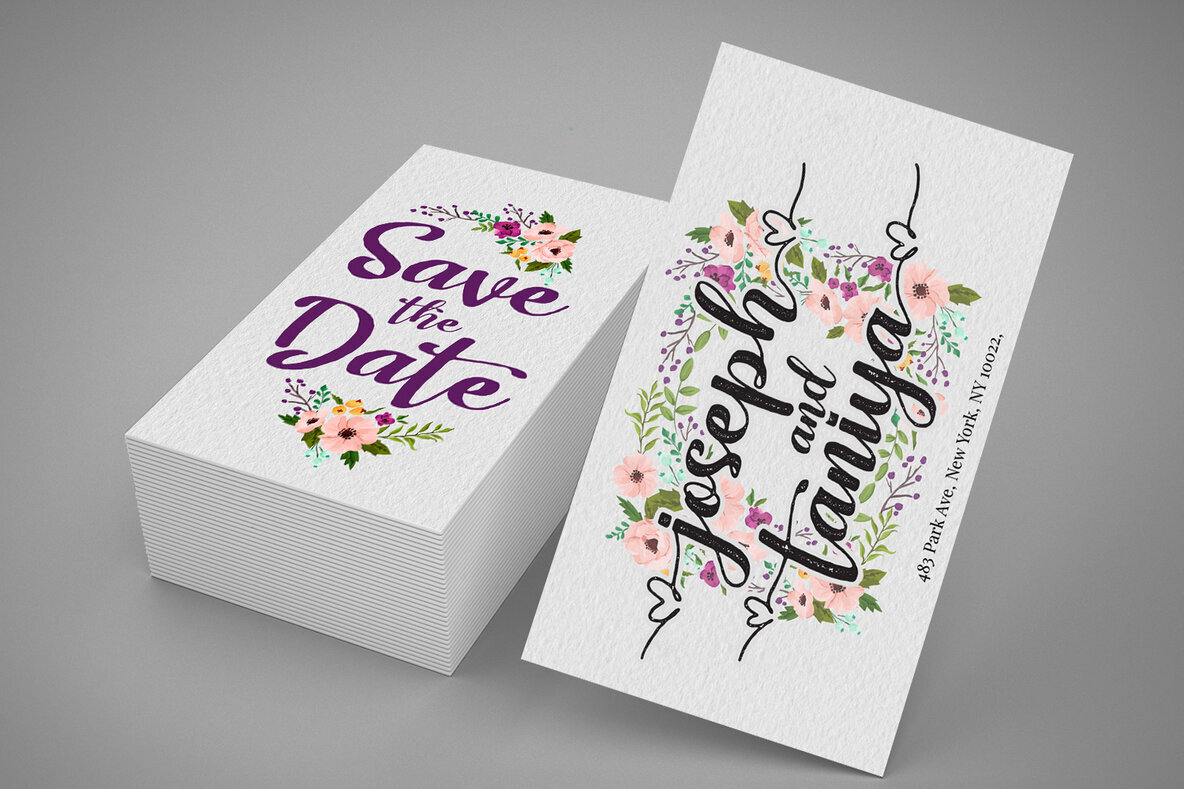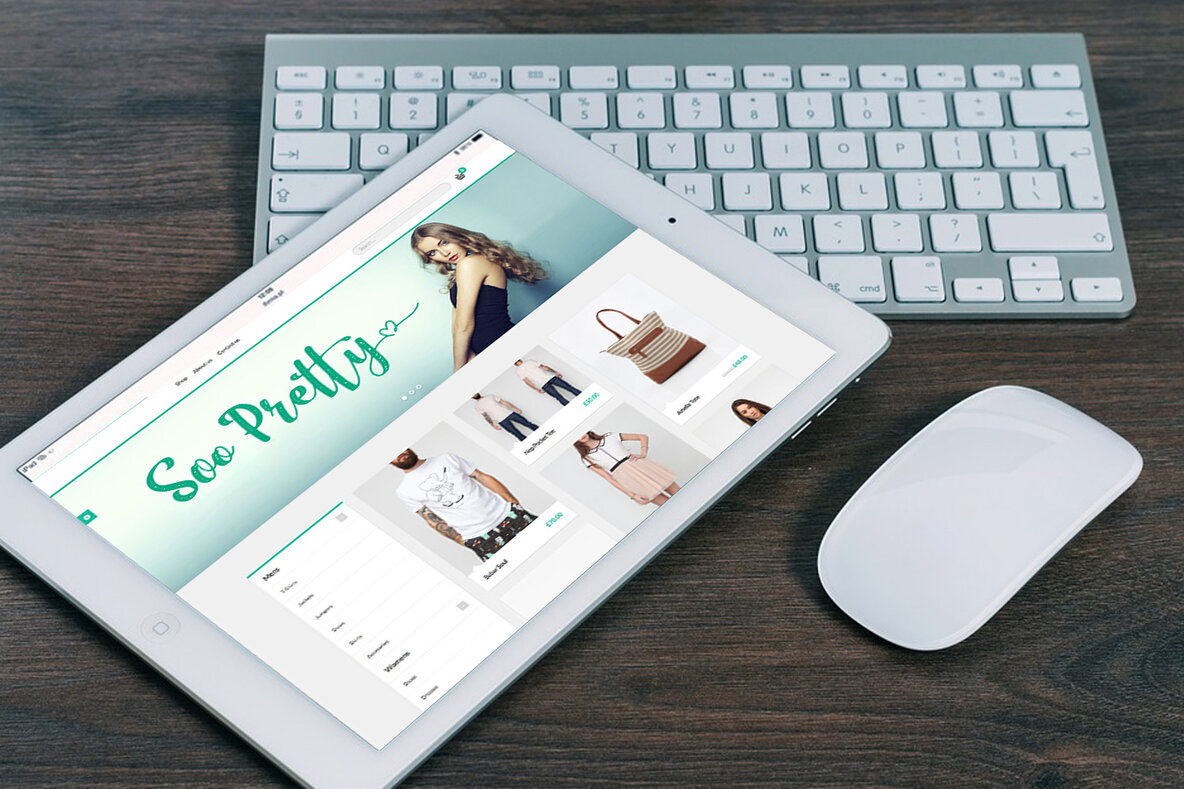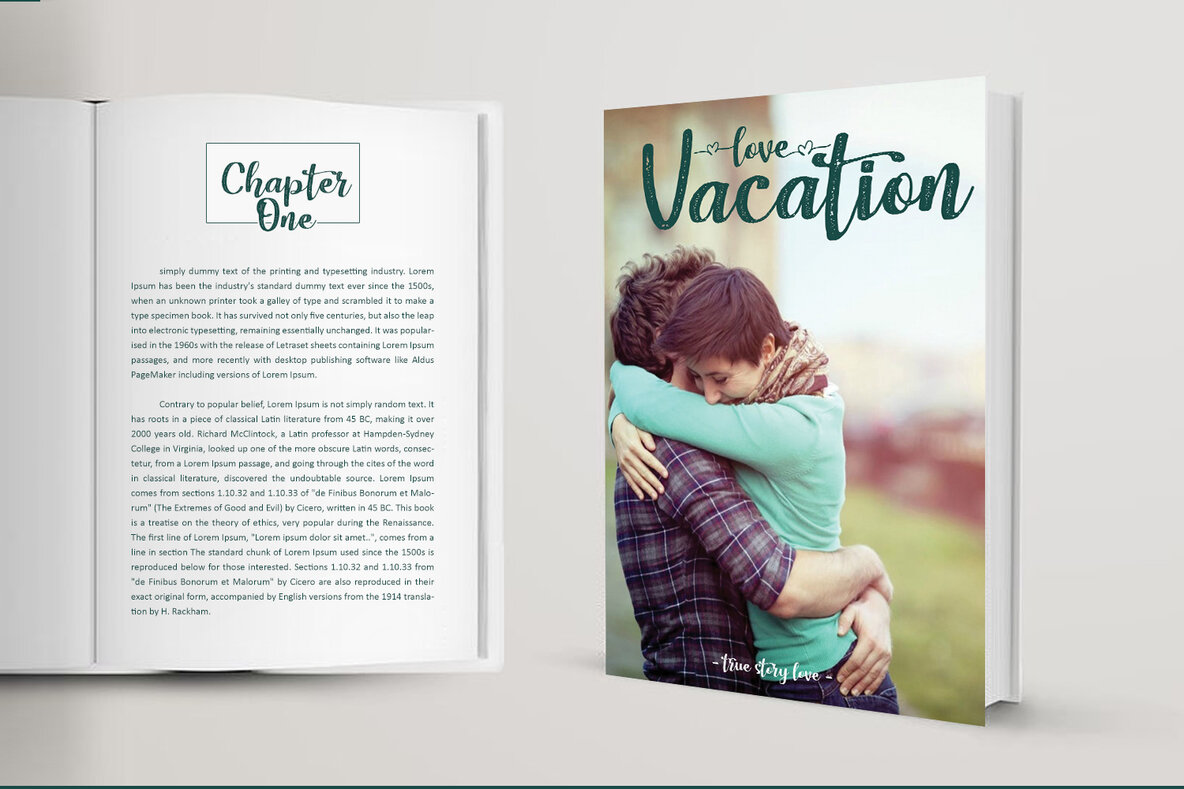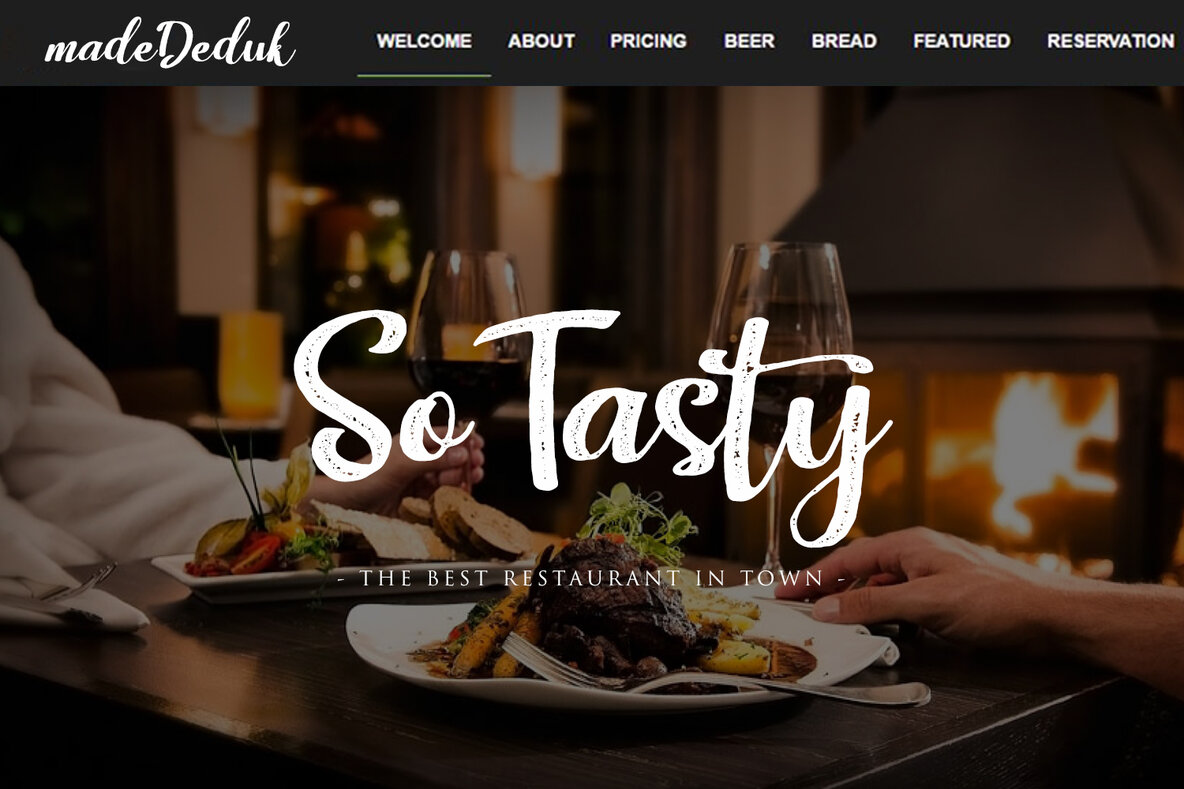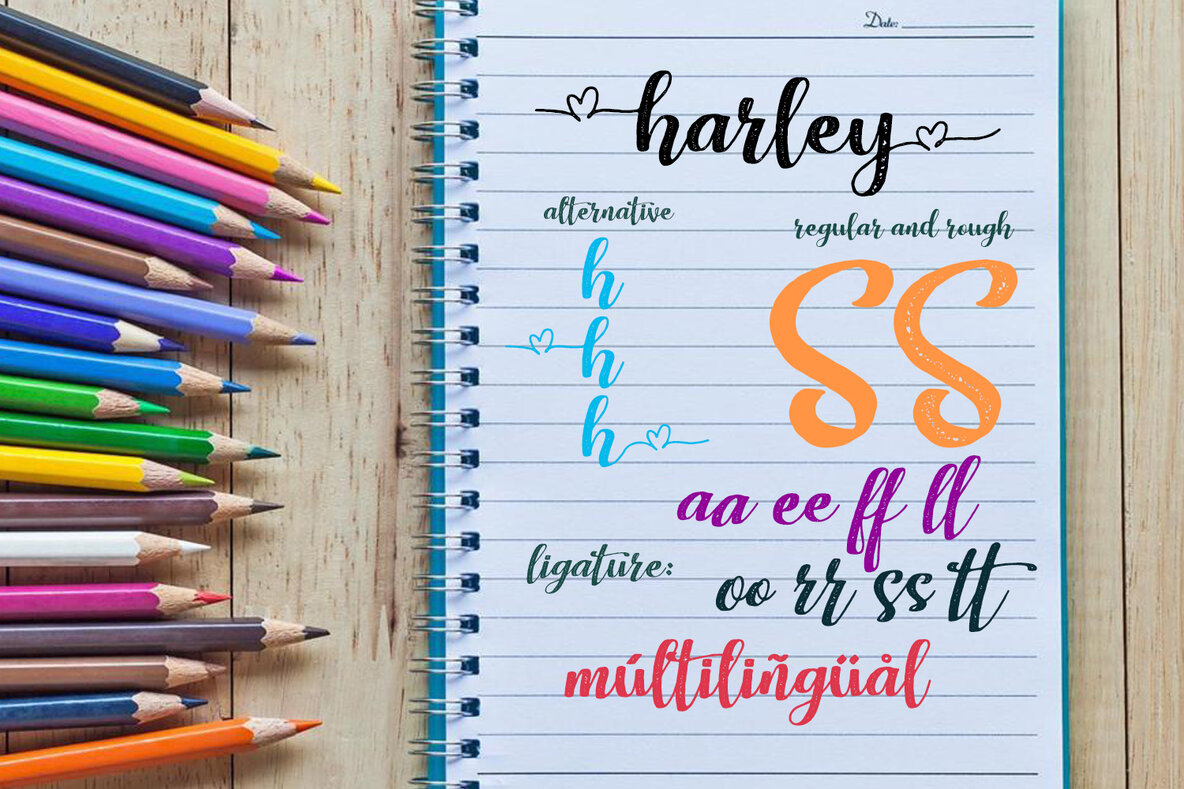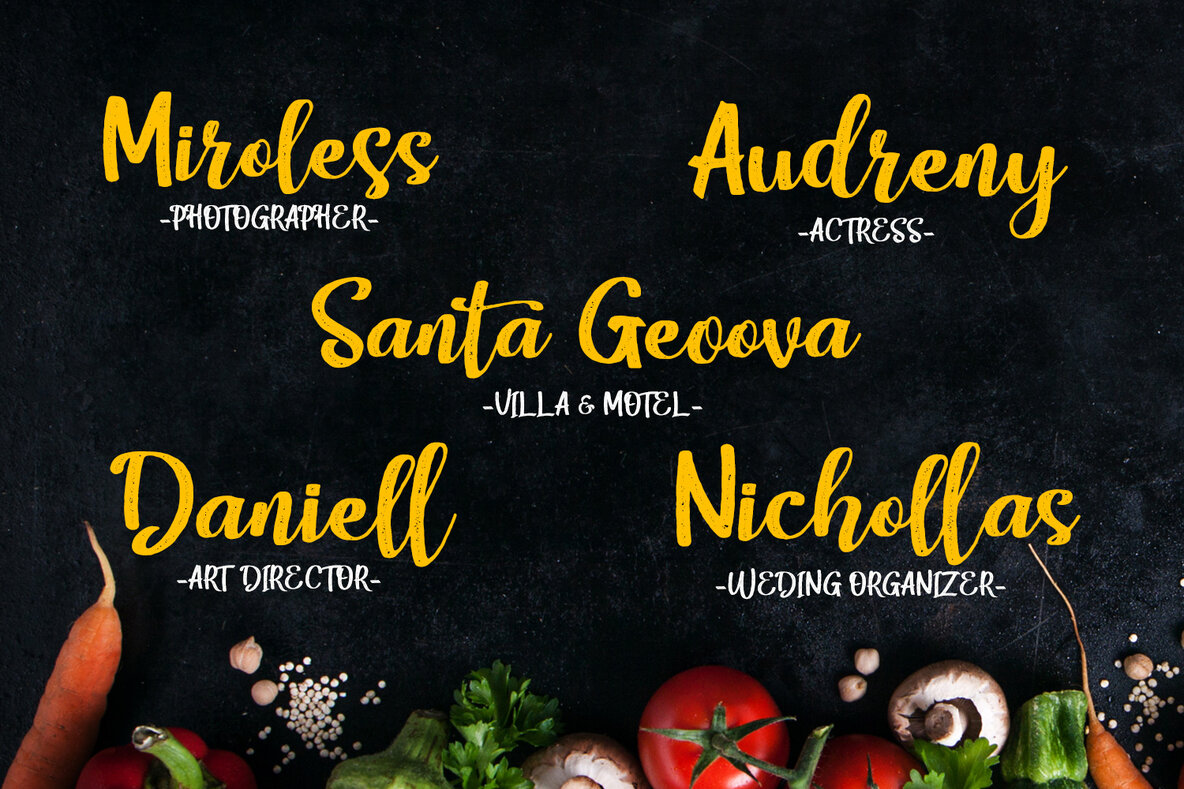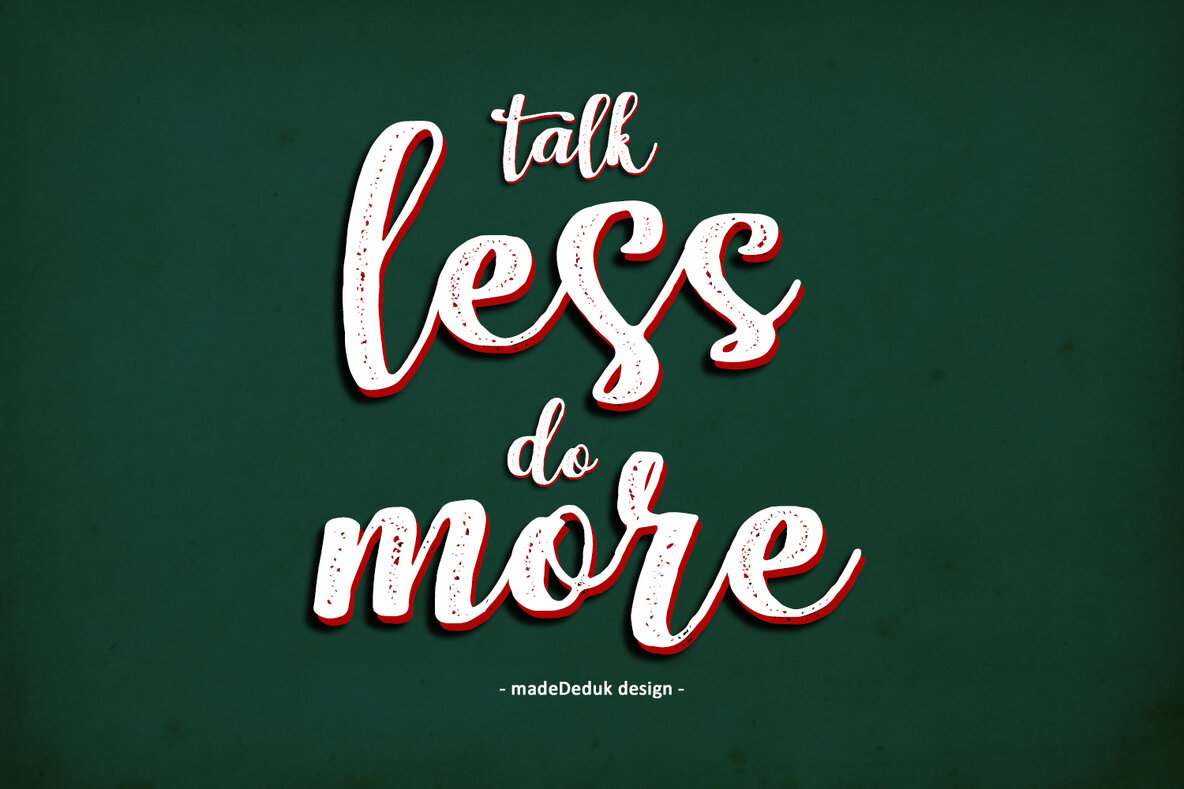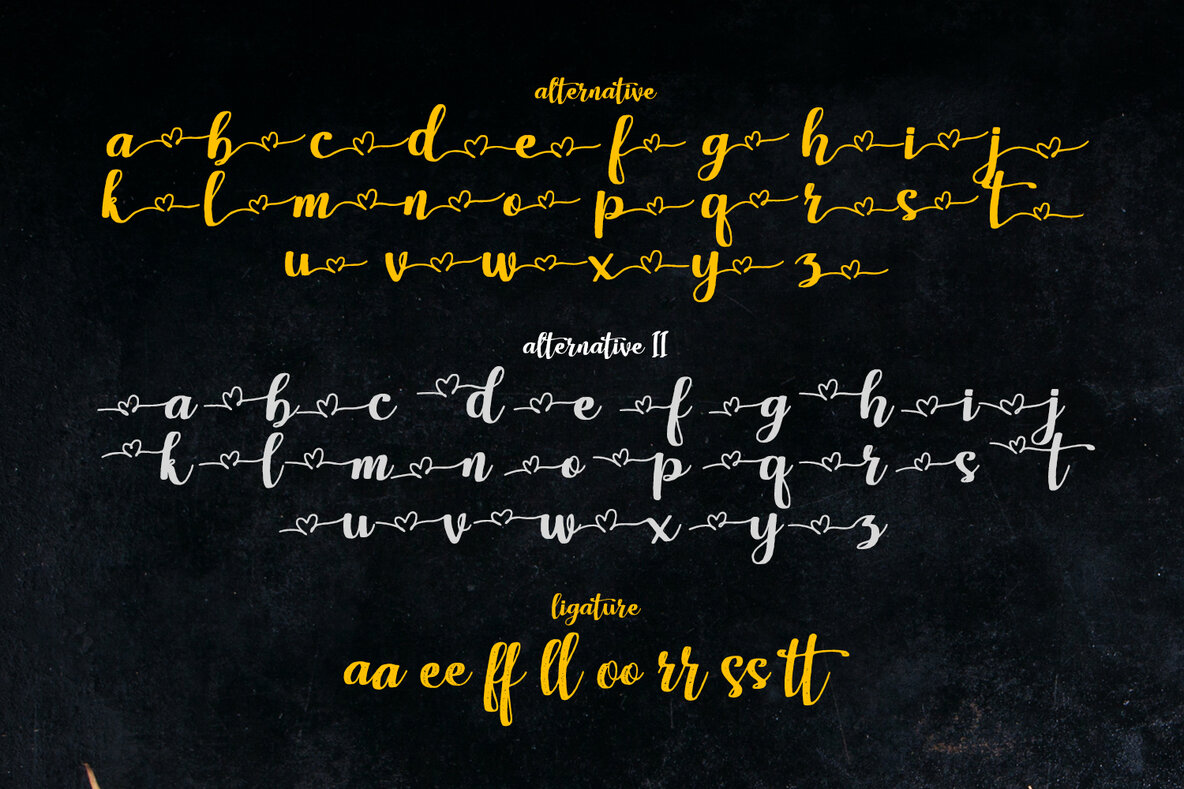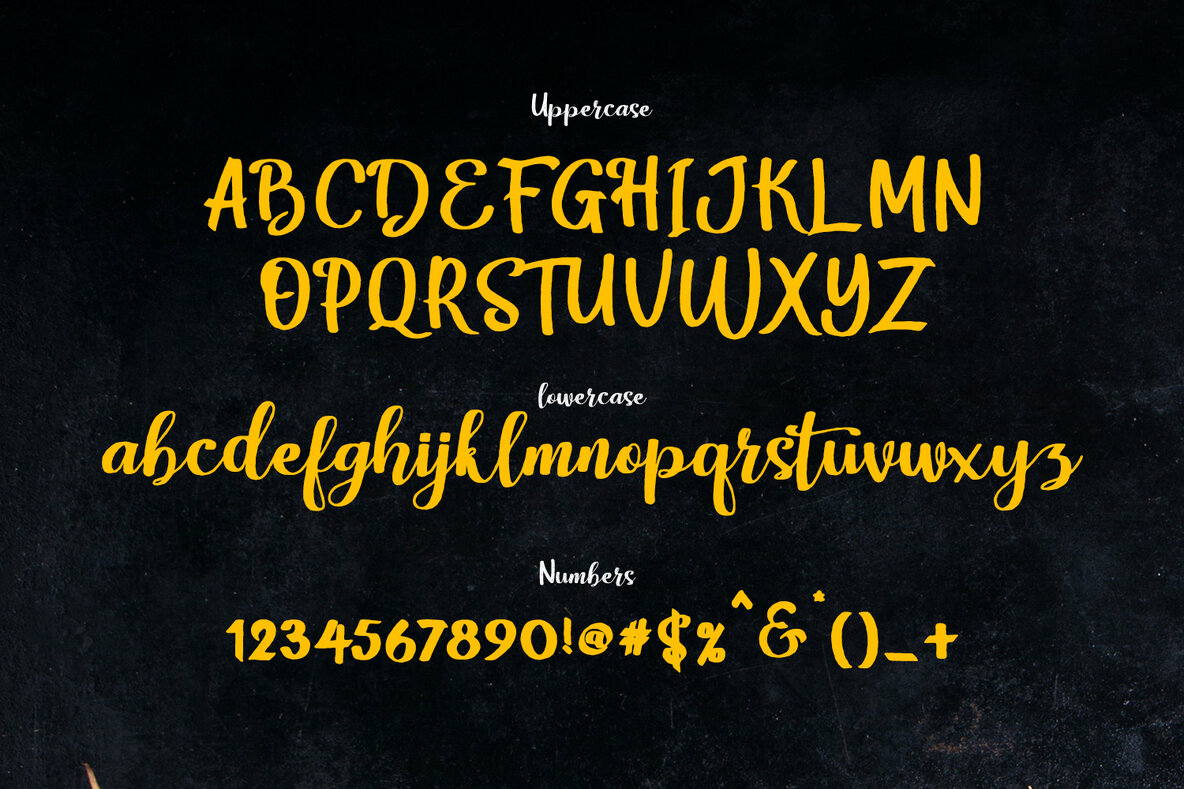
Harley Font
Harley Script Regular
Harley Script Rough
Dive into the charm of hand-lettering with the Harley Script typeface. Its elegant curves offer a distinctive flair that complements a variety of design projects.Harley Script: A Hand-Lettering Typeface